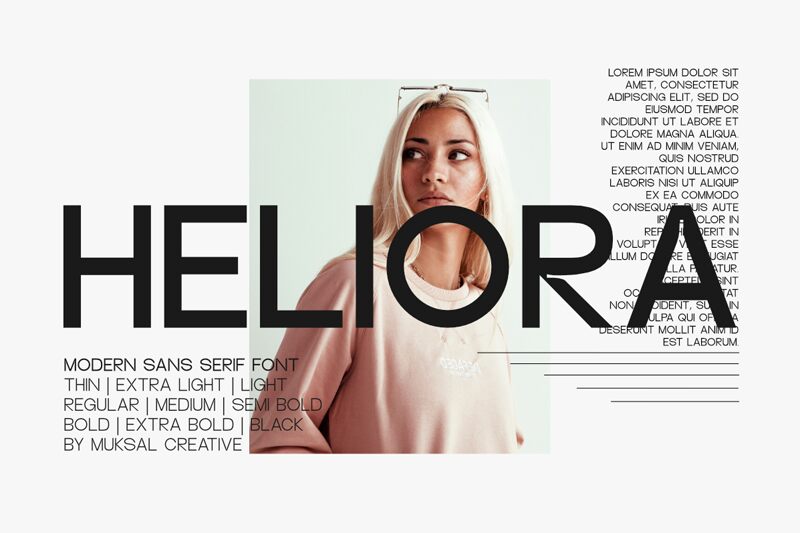
Heliora font by Muksal Creative is a free sans serif font for personal use. This sleek and modern typeface beautifully combines cleanliness and minimalism, with a contemporary, geometric flair. Versatile, professional, and stylish, this font is instantly usable in all aspects of print and digital design where a professional look is desired.
Use this font in branding, print design (documents, posters, and books), packaging, or even for website design. Other possible applications include social media content, movie titles, games, applications, restaurant menus, etc.